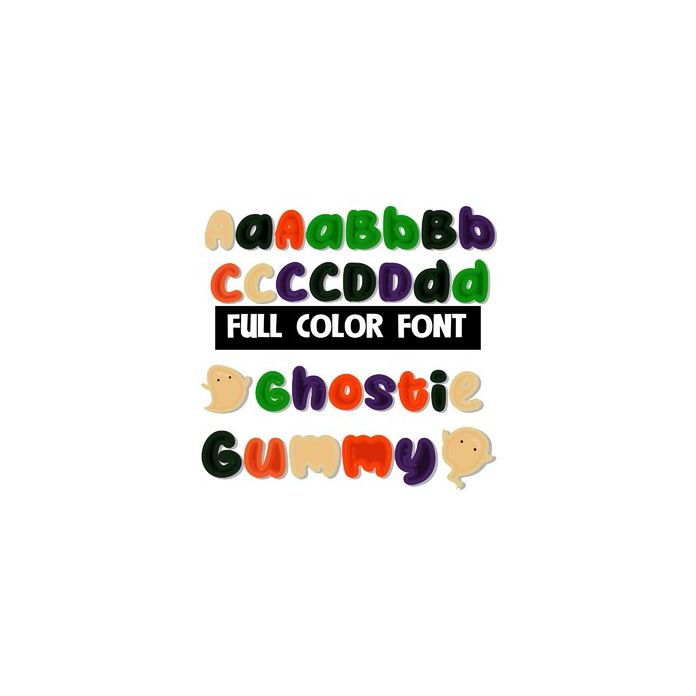
This gummy-looking font is done in a Halloween color palette has several ghosts you can access by typing any of the brackets. There is an alt case in secondary colors you can access through your system or Silhouette's glyph map.